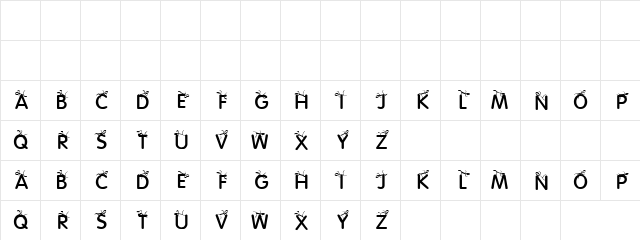
Spider Man Regular Font Preview
Spider Man Regular
Spider Man Regular Font Details
Design Context for Spider Man Typeface
Spider Man is a composed and adaptable typeface that performs quietly and consistently across a wide range of design contexts.